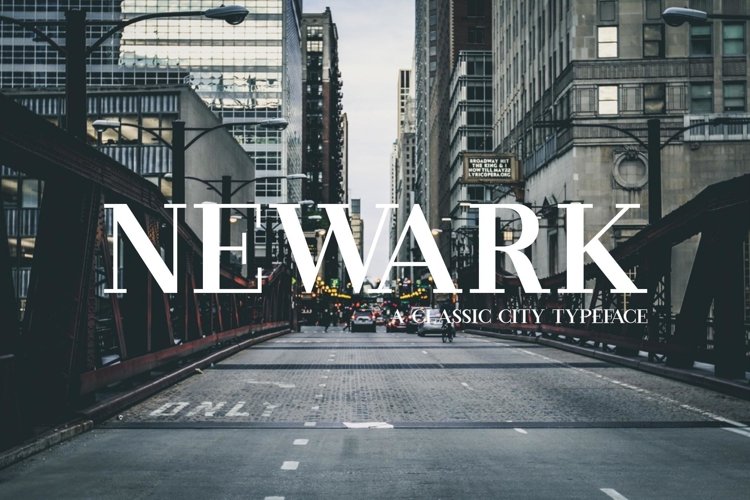
Newark | A Classic City Typeface
Introducing NewarkTypeface - A classic and awesome character! With different style, it's perfect for logos, name card, magazine layouts, invitations, headers, or even large-scale artwork.